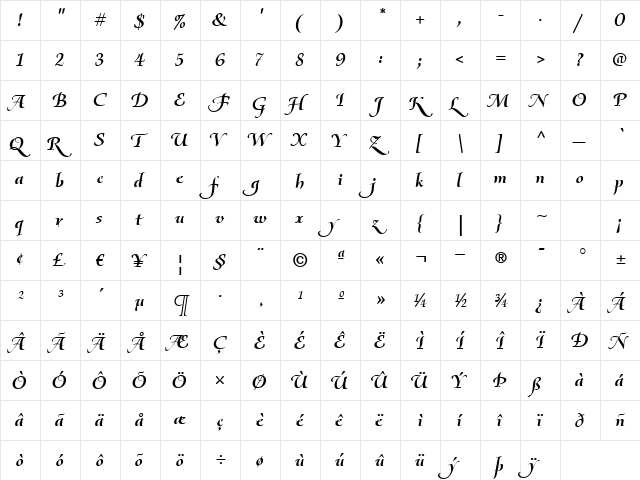
Olietta script BoldItalic
| Foundry | Gophmann A.L. |
| Designer | Gophmann A.L. |
Design Context for Olietta script Typeface
Olietta script brings a calligraphic fluidity to the page — its connecting strokes and expressive curves give it an unmistakably human quality. The heavy weight commands attention and anchors typographic hierarchies.
Font Pairing: Combine Olietta script with a simple geometric sans for maximum contrast — the tension between flowing curves and clean structure is a classic typographic pairing.